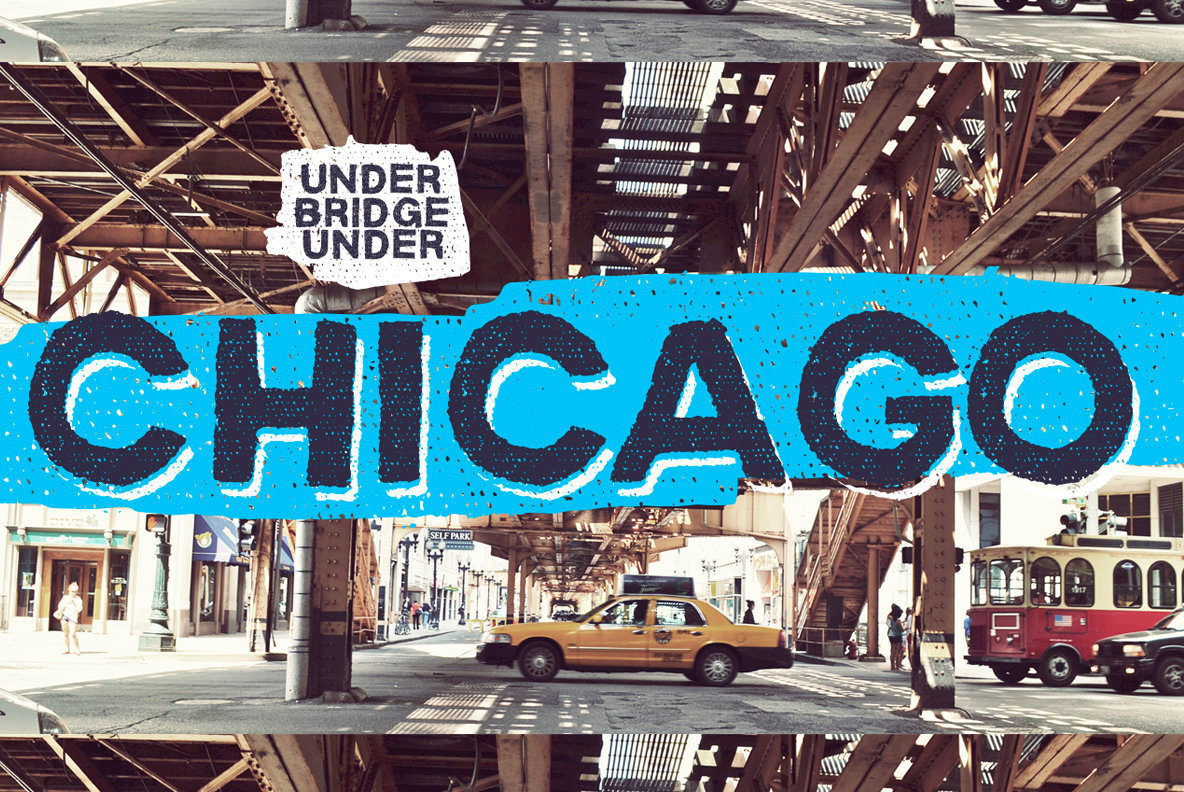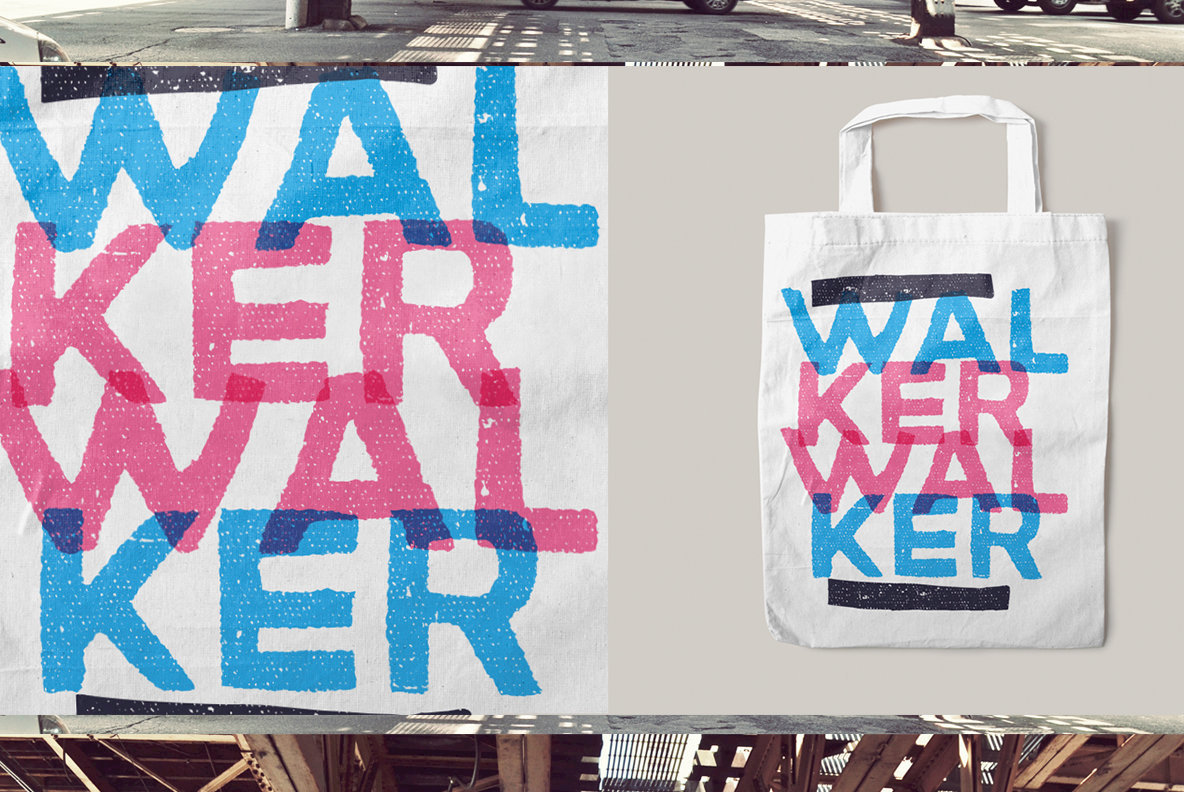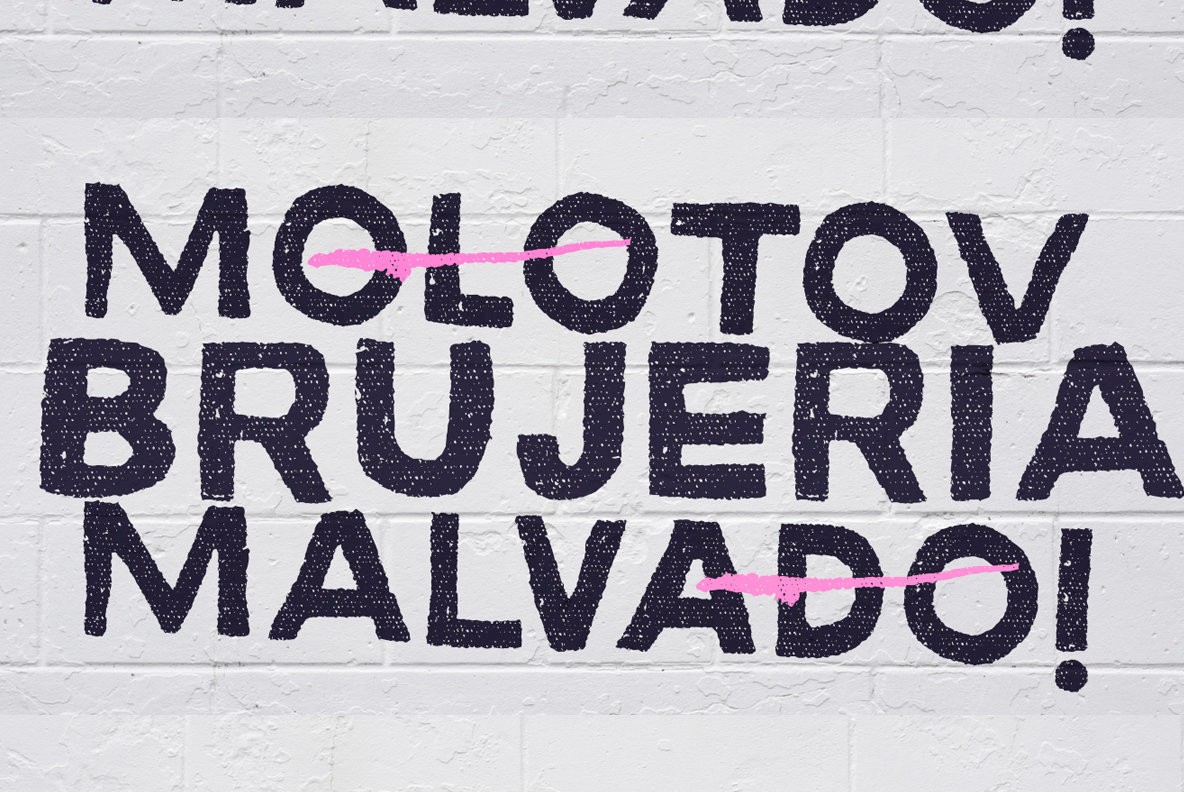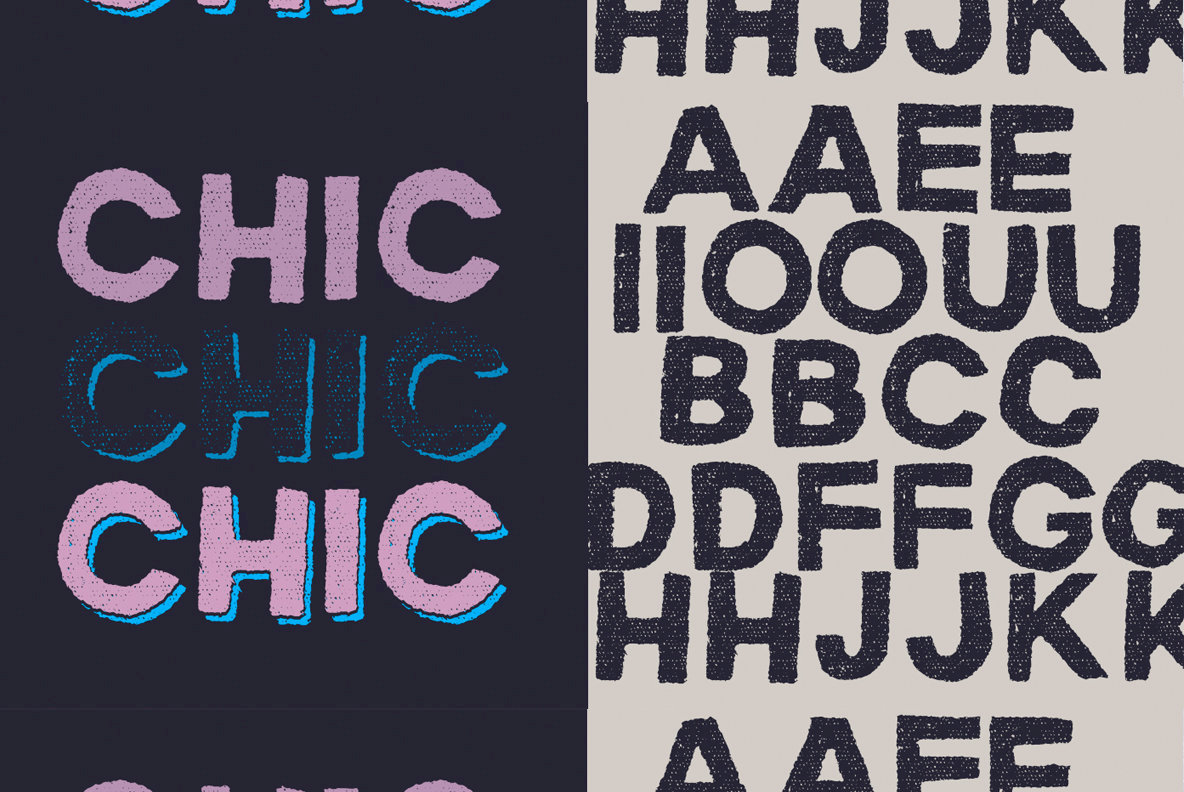
Macabro Danger Font
Macabro Danger Regular
Macabro Danger Brush
Macabro Danger Dingbat
Macabro Danger Shadow
Macabro Danger stands as a striking choice for those seeking an unconventional typeface. Designed with an avant-garde spirit, this font exudes a sense of daring and dynamism, making it especially suitable for eye-catching displays and creative branding endeavors.Macabro Danger: A Bold Display Typeface